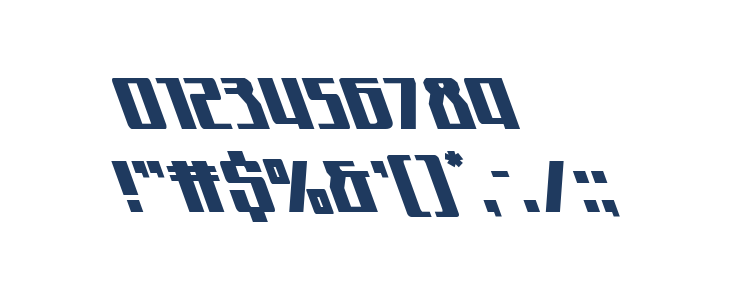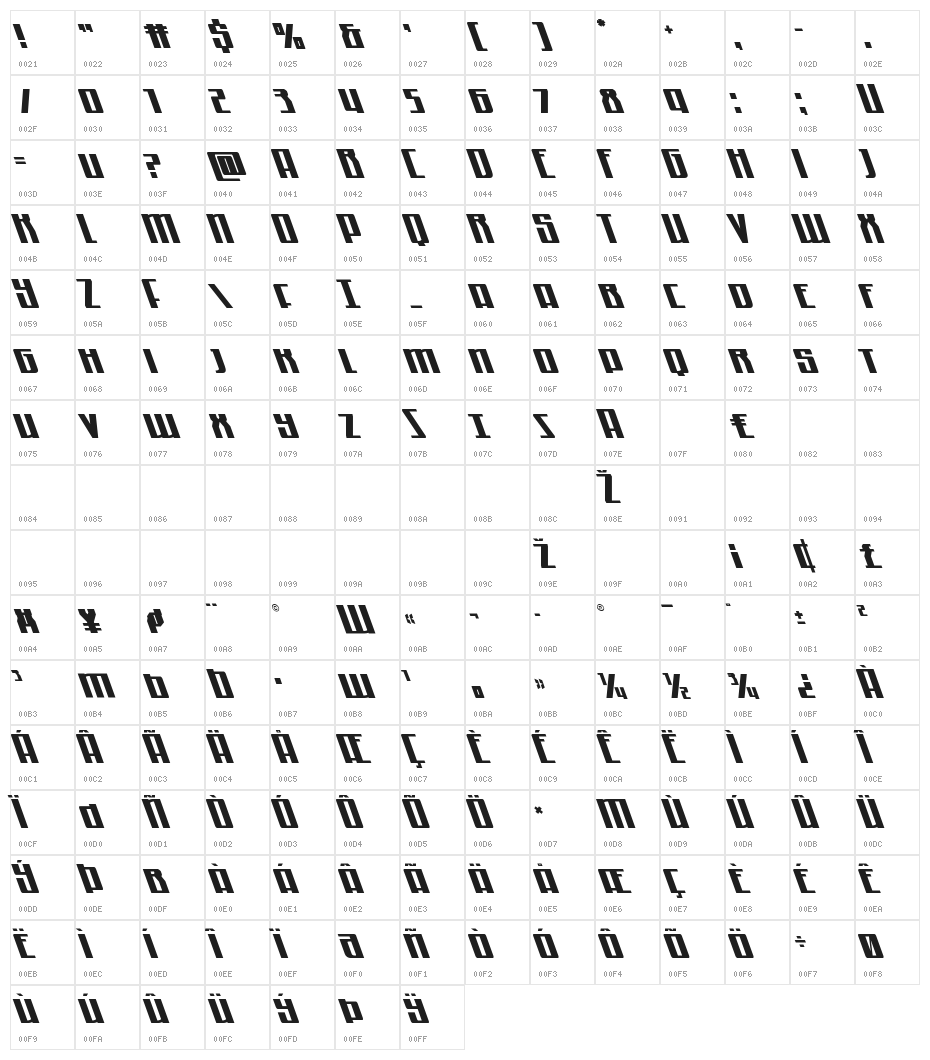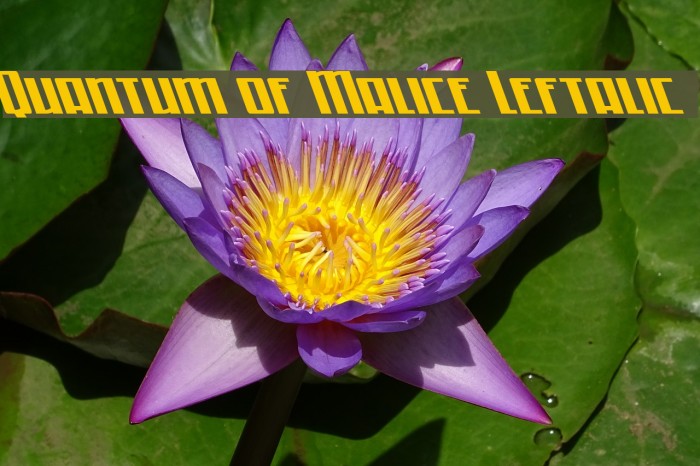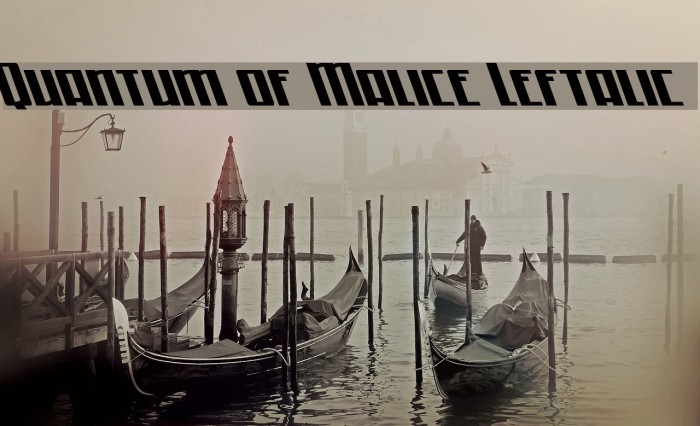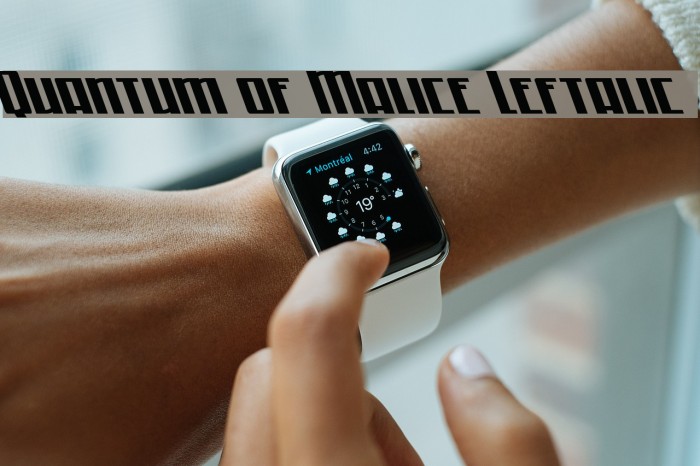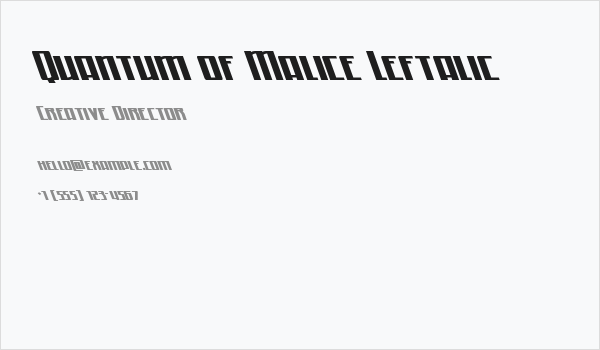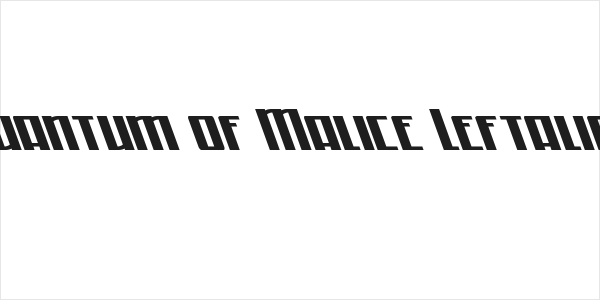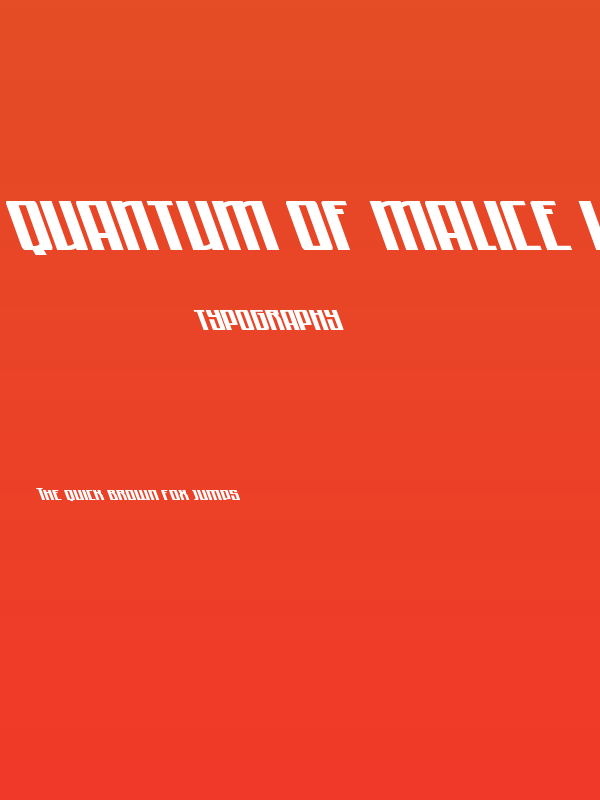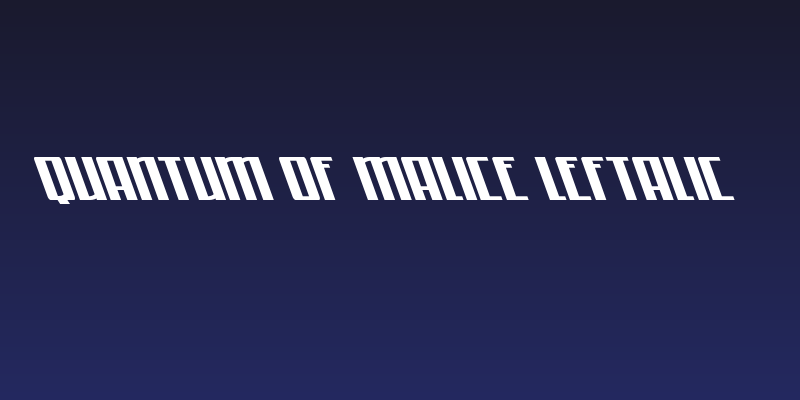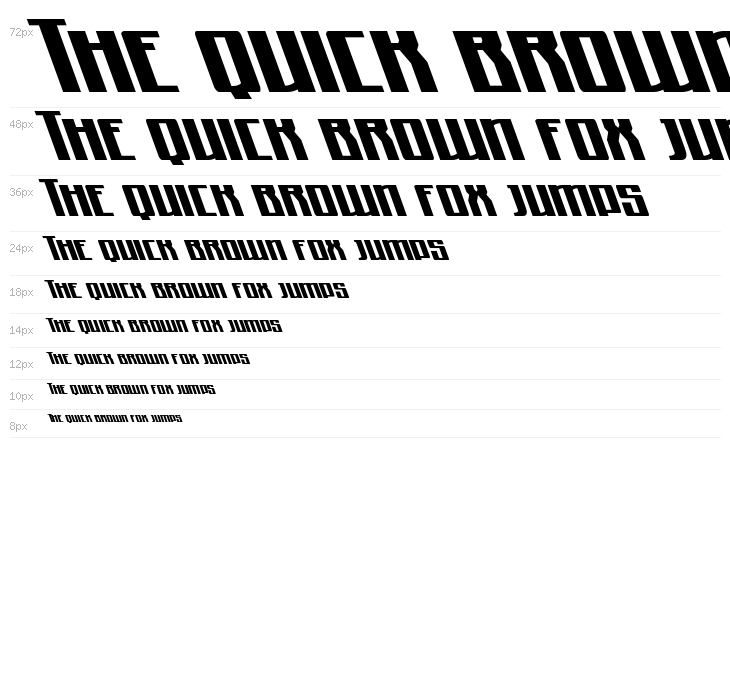
Quantum of Malice Leftalic Font
Quantum of Malice Leftalic Description
This font features a bold and dynamic style with a distinct slant to the left, giving it a sense of motion and energy. The characters are angular and geometric, with sharp edges and a strong presence. The uppercase and lowercase letters maintain a consistent design, creating a cohesive look. The numbers and special characters follow the same bold and angular style, ensuring uniformity across all glyphs. This font is ideal for projects that require a modern and edgy aesthetic, making it suitable for headlines, posters, and branding materials.
| Proposed Projects | Ideal for edgy branding, dynamic posters, and modern headlines. |